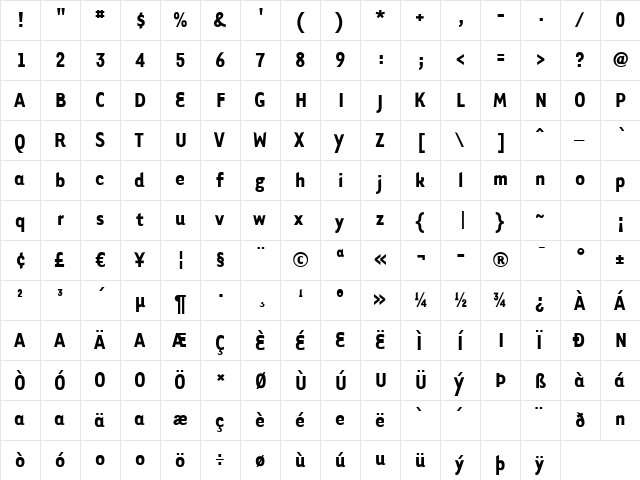
TarzanaNarrowBold Regular Font Preview
Design Context for TarzanaNarrowBold Typeface
TarzanaNarrowBold offers clean, dependable letterforms without strong stylistic allegiance, making it a practical choice for designers who need flexibility. The heavy weight commands attention and anchors typographic hierarchies. The condensed width makes it efficient for tight spaces without sacrificing legibility.